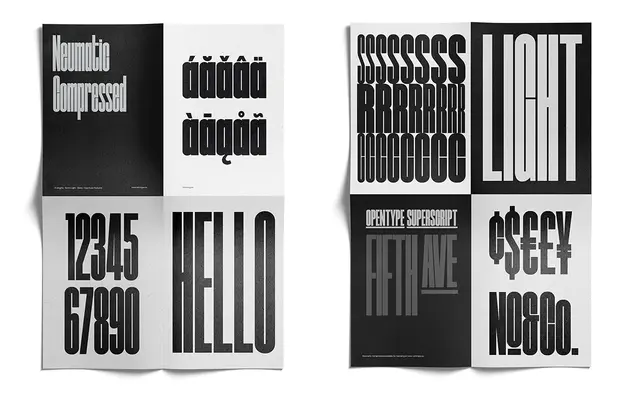
Neumatic Compressed
A super-compressed display sans in eight weights, built for tall, tightly set headlines in posters, magazines and books.
With an exaggerated cap height and extreme compression, it maximises vertical impact at large sizes while remaining legible across a full weight range from ExtraLight to Black. Squared dots on i, j and punctuation are the default, with a stylistic set swapping these to round dots, and OpenType superscript support adds further typographic utility. Suited to editorial and print contexts where column width is tight and headlines need height.
A super-compressed display sans designed explicitly for headlines and poster work, with an increased cap height and tight kerning that place it firmly in the display category rather than a general-purpose sans.